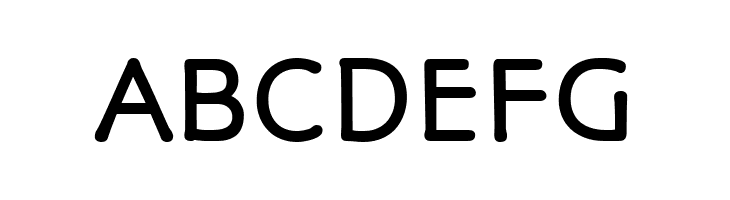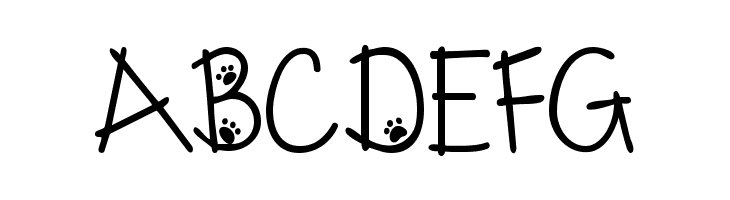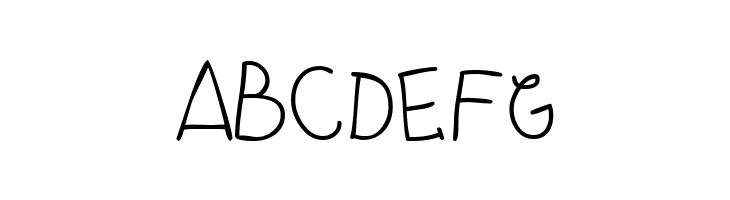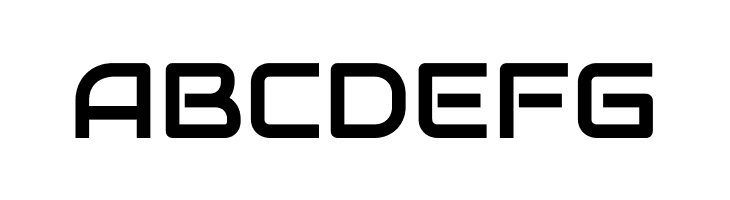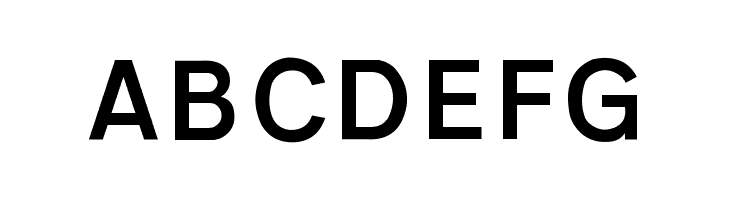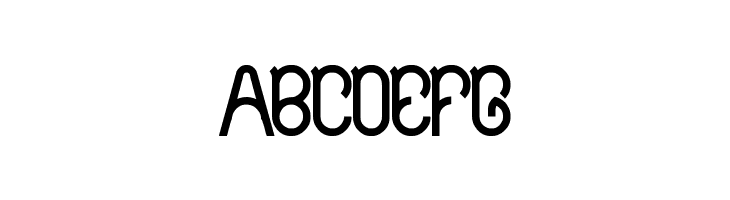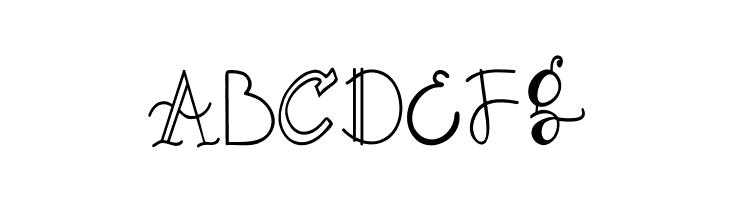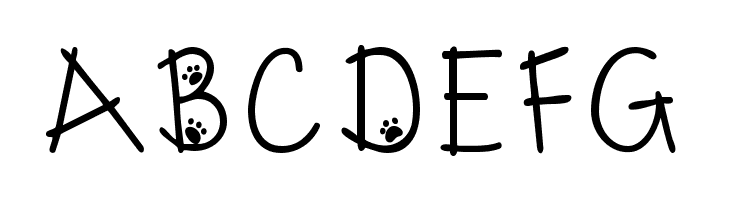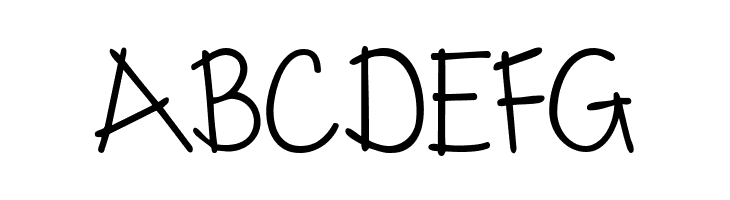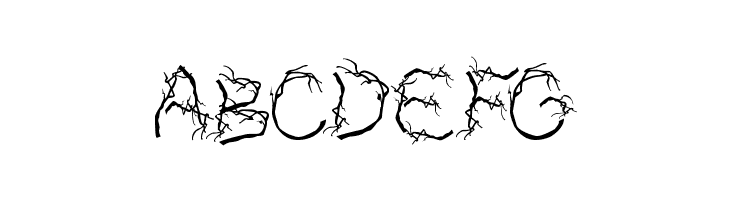
A sleek, ultra-light font with tall, narrow letterforms and a modern aesthetic.
An ultra-light, tall, and narrow font with a modern, minimalist style.
A bold, geometric font with high contrast and unique angular cutouts.
A bold, futuristic font with geometric shapes and strong lines.
A futuristic, geometric font with bold, angular letterforms and rounded edges.
A futuristic, geometric font with bold, rounded characters and a modern appeal.
A modern, decorative font with a striped, textured design.
A bold, Blackletter-inspired font with sharp edges and intricate detailing.
A decorative font with playful Christmas-themed doodles.
A playful, paw-print adorned font with a whimsical, hand-drawn style.
A playful, handwritten font with a whimsical and childlike charm.
A whimsical and eclectic font with playful, decorative elements.
A playful, whimsical script font with fluid, interconnected letters.
A flowing, cursive script font with interconnected letters and artistic flair.
A bold, geometric font with a futuristic and industrial aesthetic.
A bold, artistic font with a futuristic and geometric style.
A cursive, flowing script with elegant, connected characters.
A bold, cursive font with smooth, flowing lines and a handwritten appearance.
A playful, rounded font with smooth curves and a friendly appearance.
A playful, hand-drawn font with a whimsical and informal style.
A decorative font with characters resembling twisted branches, ideal for nature or fantasy themes.
A playful, casual handwritten font with fluid, slightly irregular strokes.
A pixelated, retro-style font with a blocky, digital appearance.
An elegant serif font with decorative swashes and a classic style.